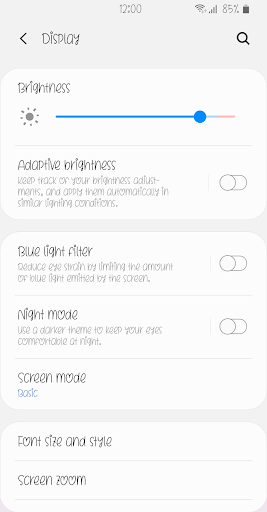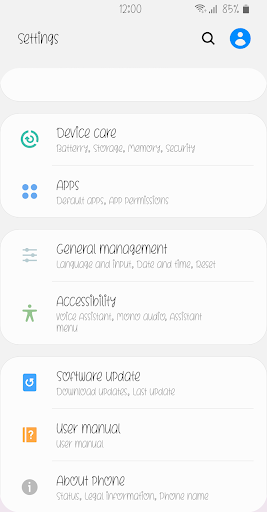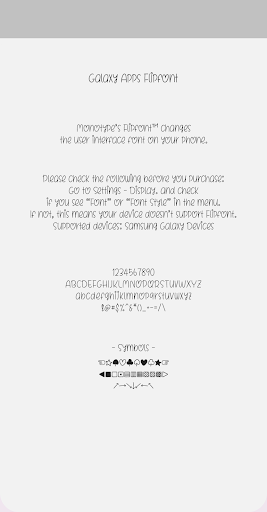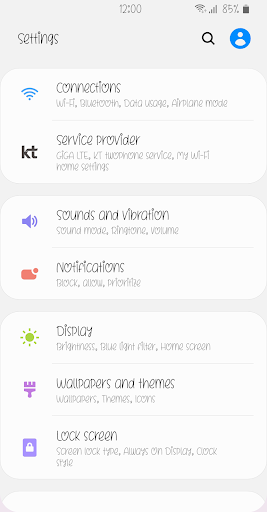
Nm HelloSoulmate
Nm HelloSoulmate is a lovely and cute font and has good readability. Customize your phone with HelloSoulmate. Please try this font and leave your feedback.